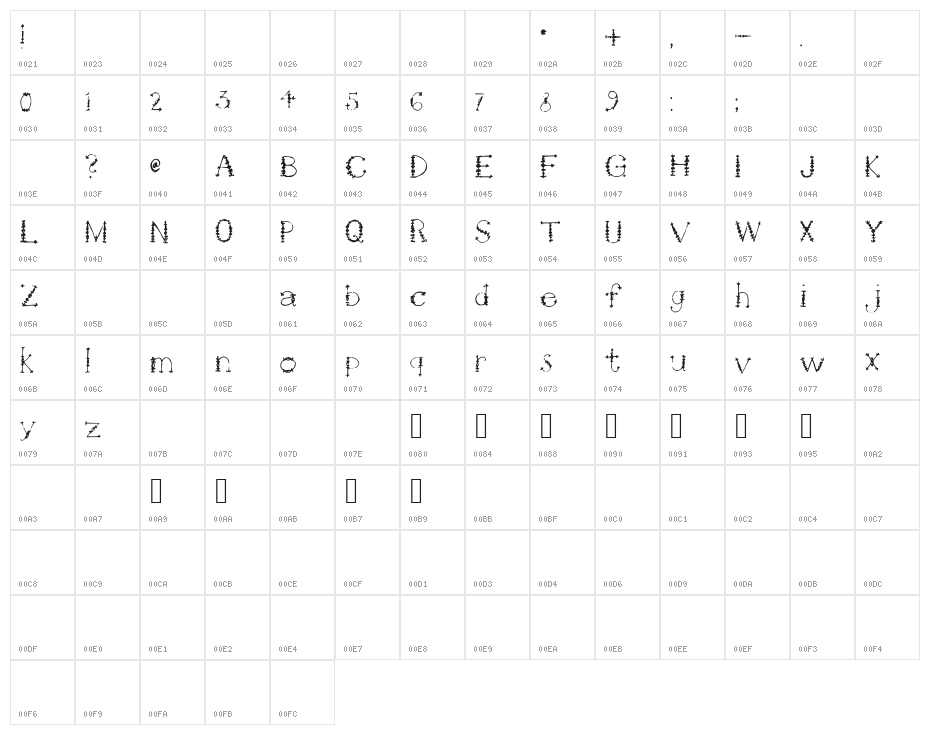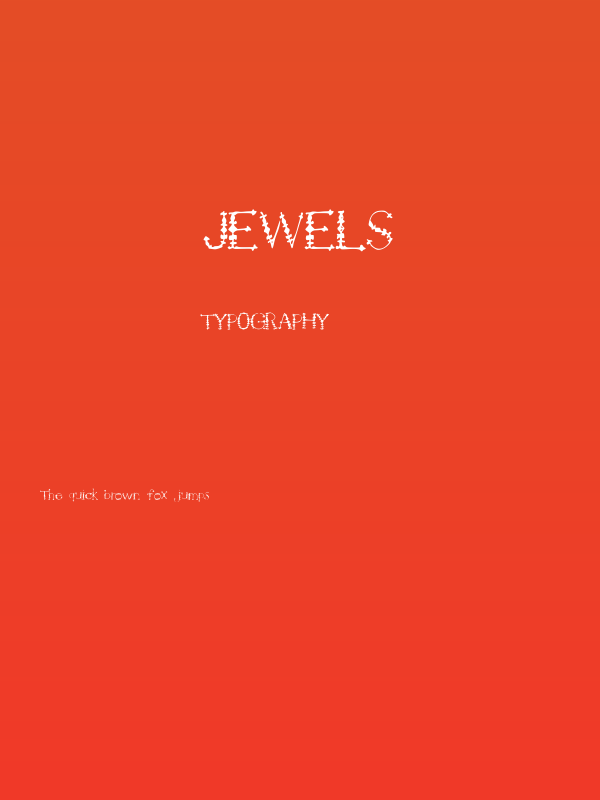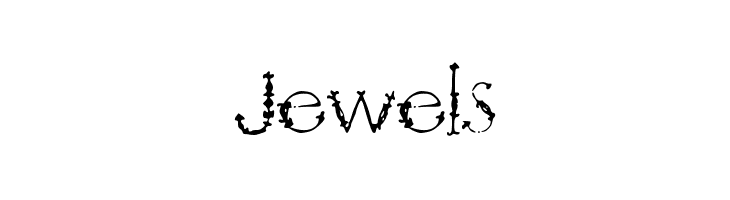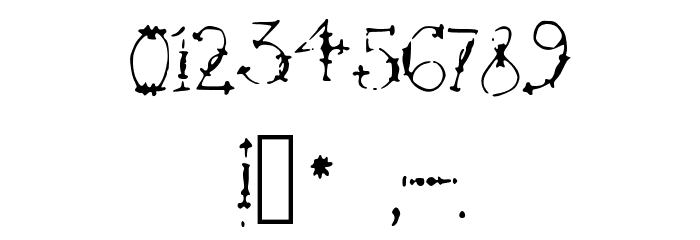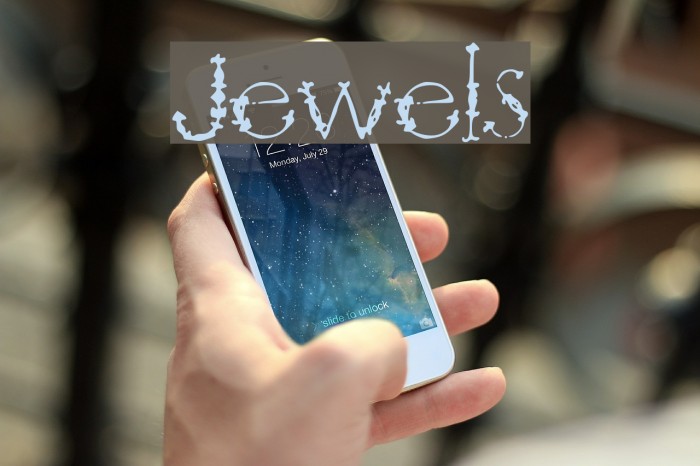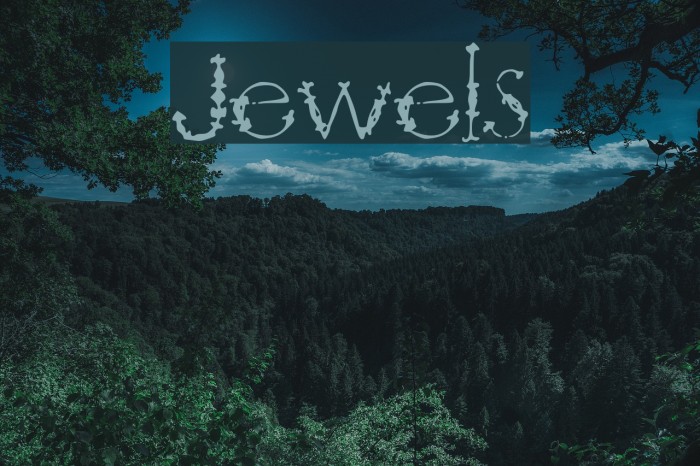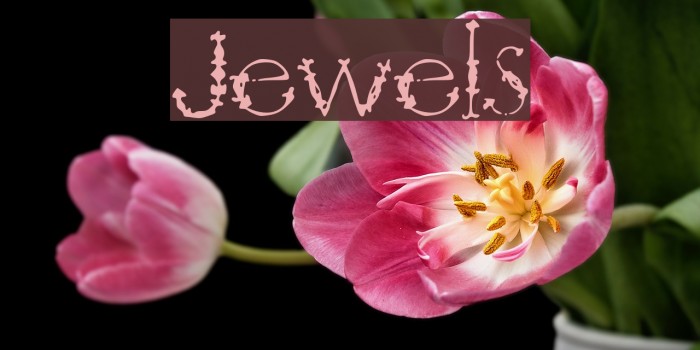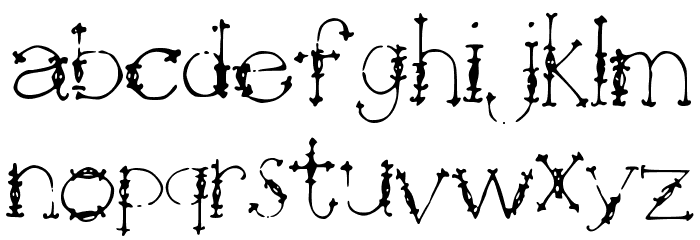
Jewels Font
This font features a unique and intricate design, characterized by decorative elements that resemble jewels or ornate patterns integrated into each character. The letters have a whimsical and artistic flair, with embellishments that create a sense of elegance and sophistication. The uppercase and lowercase letters maintain a consistent style, with the decorative elements adding a playful yet refined touch. The numerals and special characters are similarly adorned, ensuring a cohesive look throughout the font. This font is perfect for projects that require a touch of luxury and creativity.
| Use Case | Headlines, Logos, Invitations |
| Proposed Projects | Ideal for luxury branding, wedding invitations, artistic posters, and decorative headlines. |